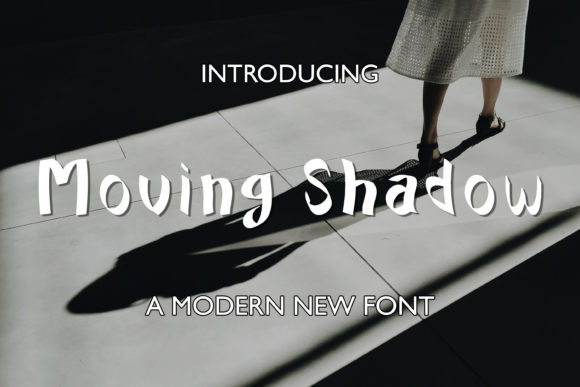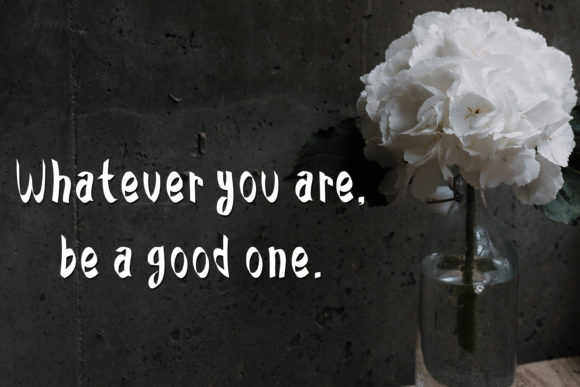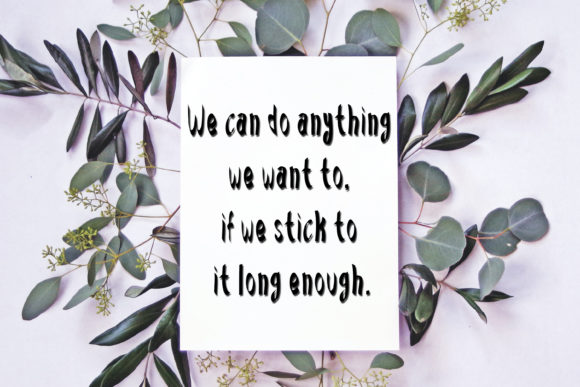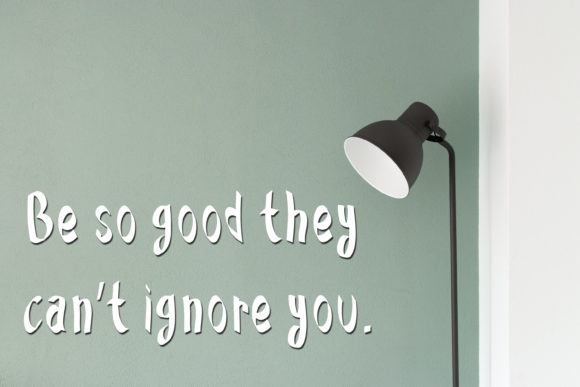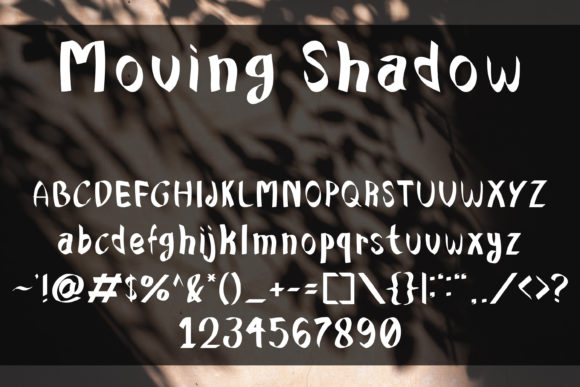
About Moving Shadow Font
Introducing Moving Shadow, a modern and cool handwritten font that adds a stylish touch to your designs. With its adaptable nature and sleek appearance, this font is perfect for a wide range of projects, including t-shirts, sportswear, logos, advertisements, clothing, and more.
Moving Shadow is designed to make a statement with its unique and contemporary look. The letters have a distinctively hand-drawn quality, with smooth curves and sharp edges that create a dynamic and edgy vibe. The uneven strokes and subtle irregularities give the font a sense of movement and energy, adding an element of visual interest to your designs.
This font is incredibly versatile and can be used in various design contexts. Whether you’re creating a bold logo for a sports brand, designing a trendy t-shirt graphic, or crafting an eye-catching advertisement, Moving Shadow will bring a modern and cool aesthetic to your work. Its adaptable nature allows it to seamlessly fit into different design styles and themes.
The clean and legible letterforms of Moving Shadow ensure that your text is easily readable, even in smaller sizes or when used as part of a complex design. The balanced spacing between characters and well-defined shapes make this font highly readable, maintaining clarity and impact in your designs.
One of the standout features of Moving Shadow is its ability to add depth and dimension to your designs. The font appears as if it’s casting a shadow, creating a sense of three-dimensionality and adding visual interest. This unique characteristic makes Moving Shadow a great choice for designs that require a contemporary and cool look.
Furthermore, the versatility of Moving Shadow extends to various color schemes and backgrounds. The font looks great on both light and dark backgrounds, allowing you to experiment with different color combinations and create captivating designs.
Whether you’re designing for a streetwear brand, a sports event, or any other project that calls for a modern and cool aesthetic, Moving Shadow will elevate your designs and make them stand out. With its adaptability, legibility, and unique style, this font is a valuable addition to your creative toolkit.
In summary, Moving Shadow is a modern, adaptable, and cool handwritten font that brings a stylish touch to your designs. With its sleek appearance, readability, and ability to add depth to your designs, it is well-suited for a variety of projects, including t-shirts, sportswear, logos, advertisements, and more. Explore the possibilities of Moving Shadow and let it enhance the visual impact of your designs.